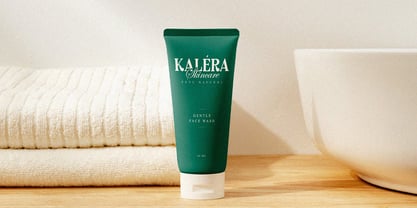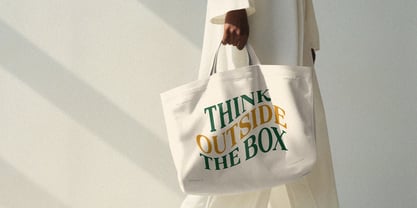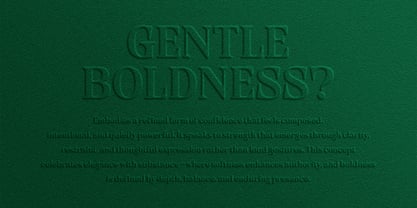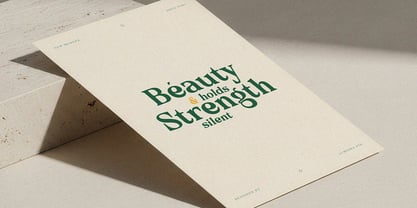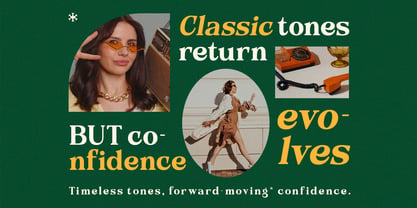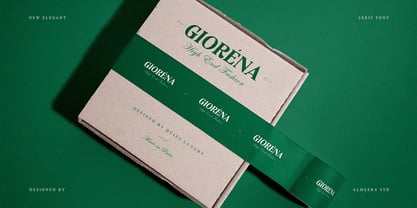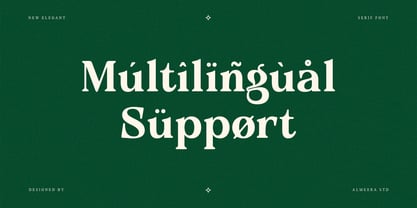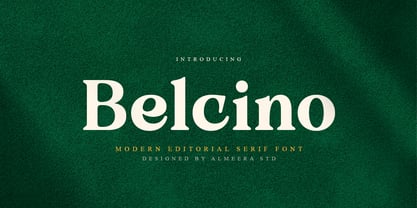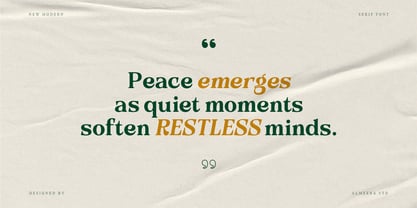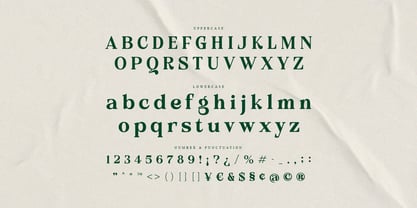
Belcino
by Almeera Studio
The Belcino Font Family was designed by Rinto Dwi Nugroho and published by Almeera Studio. Belcino contains 1 styles. More about this family
Belcino is a modern editorial serif font crafted to express sophistication, rhythm, and narrative strength. Its carefully shaped letterforms feature refined contrast and smooth transitions, resulting in a serif typeface that feels expressive yet highly professional.
Belcino is especially suited for editorial compositions, branding projects, creative headlines, and design systems that require character and elegance. With balanced spacing and multilingual support, the font delivers both visual depth and functional reliability for modern editorial use.
- Alternates
- Ligatures
- Multilingual support